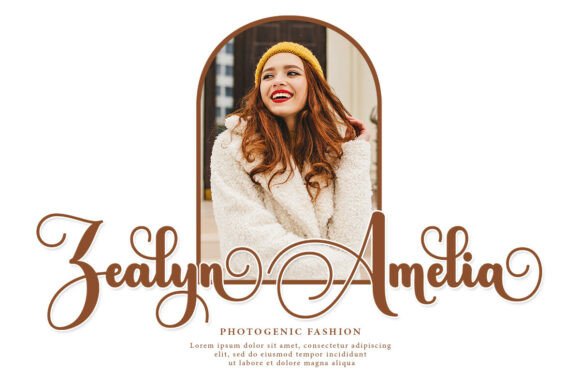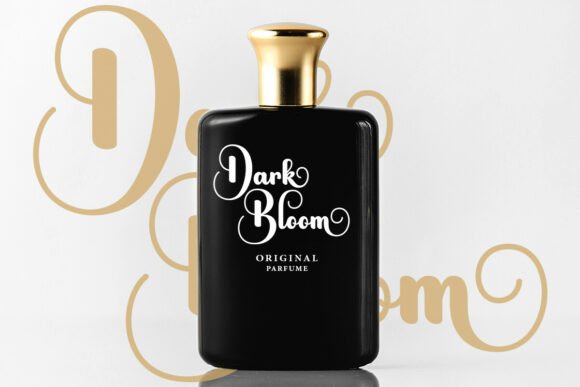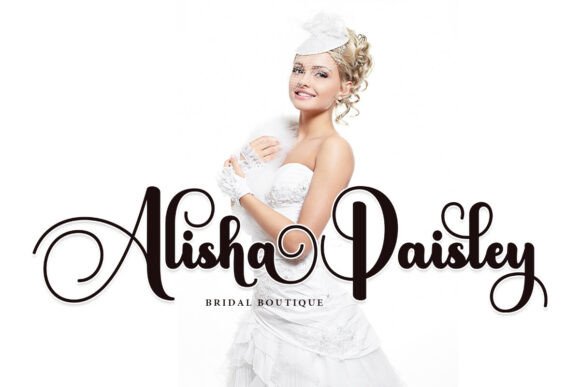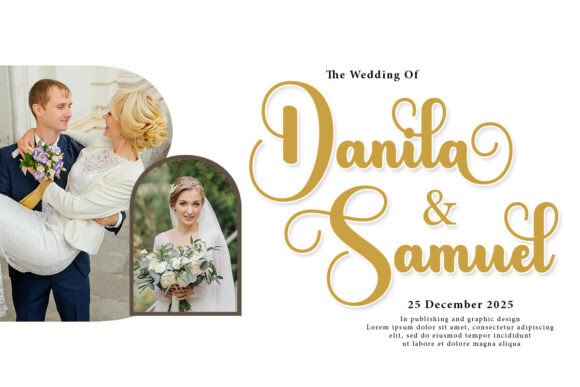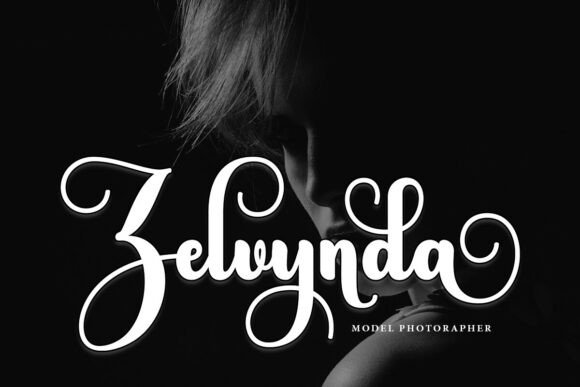
Introduction to Ashley Glisten Font
Ashley Glisten is an elegant script font featuring a beautiful character variation.
This font combines a classic style with a modern touch, designed with great attention to detail for an elegant look This font is visually appealing, clean, feminine, and easy to read, thanks to its fancy letter connections.
Key Features of Ashley Glisten Font